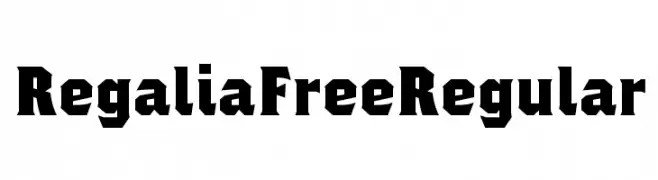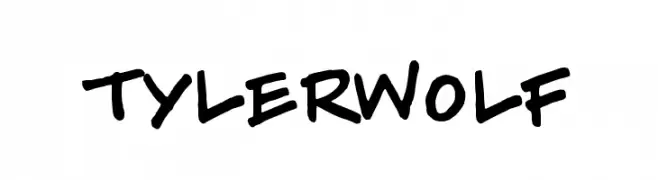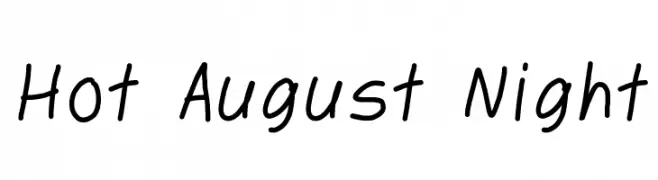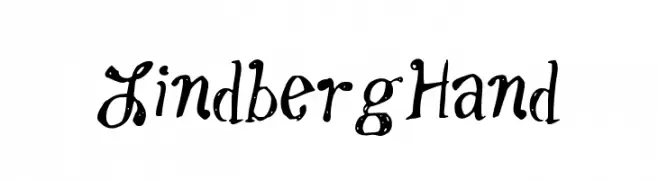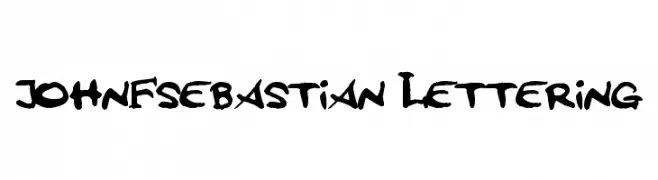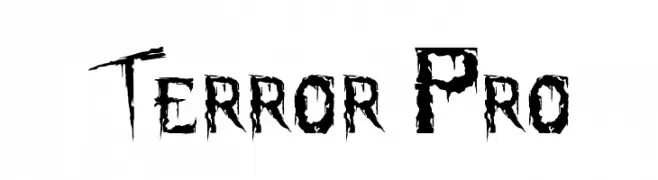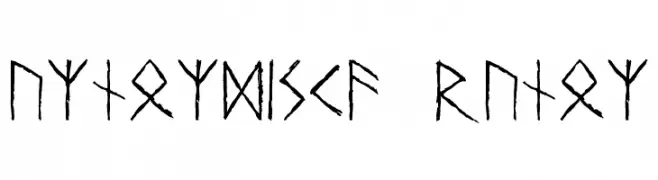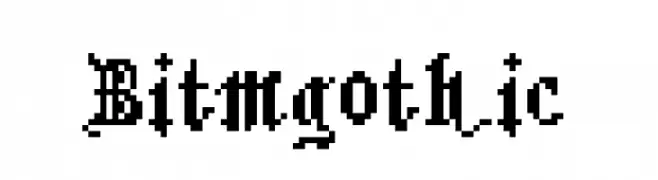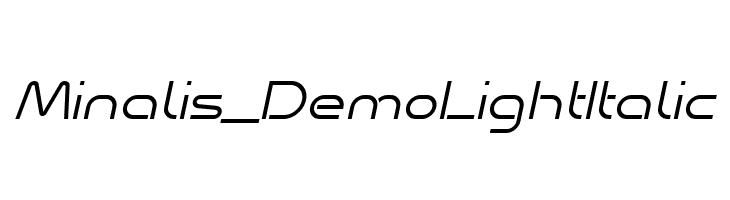
A modern, geometric sans-serif font with clean lines and balanced spacing.
A clean, modern geometric typeface with balanced character spacing.
A bold, angular font with a modern geometric style.
A bold, playful handwritten font with a casual and dynamic style.
A casual, handwritten font with a playful and approachable style.
A playful, hand-drawn font with whimsical curves and bold strokes.
A modern, narrow font with vintage flair and consistent stroke width.
A bold, hand-drawn font with dynamic, expressive characters.
A jagged, distressed font with sharp, irregular edges for dramatic designs.
A runic-inspired font with angular, linear characters evoking historical mysticism.